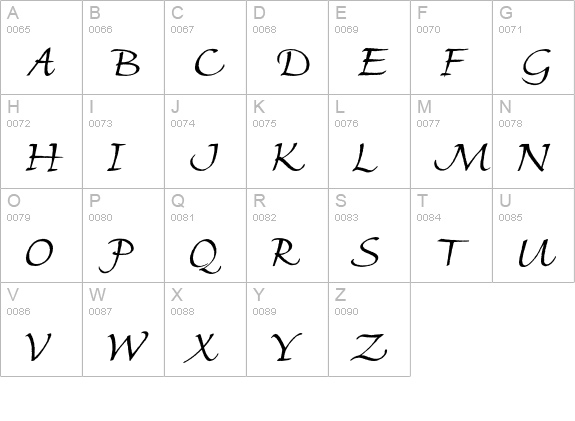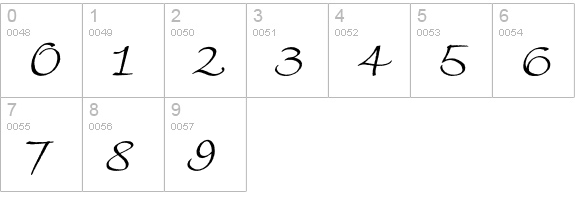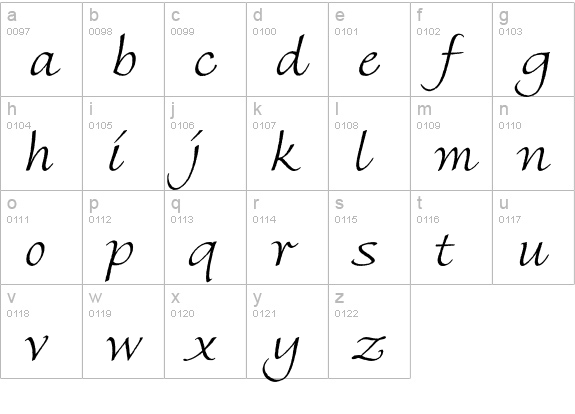
Fine Hand Std is a elegant and sophisticated typeface that exudes a timeless charm and refined beauty. With its delicate serifs and graceful curves, this font is perfect for conveying a sense of elegance and sophistication in your designs. Its fine details and smooth lines make it ideal for use in invitations, stationery, and other projects where a touch of class is needed. And the best part? Fine Hand Std is available for free download at FontsMarket.com! Now you can add a touch of luxury to your projects without breaking the bank. So why wait? Download Fine Hand Std today and elevate your designs to new heights of elegance and style.